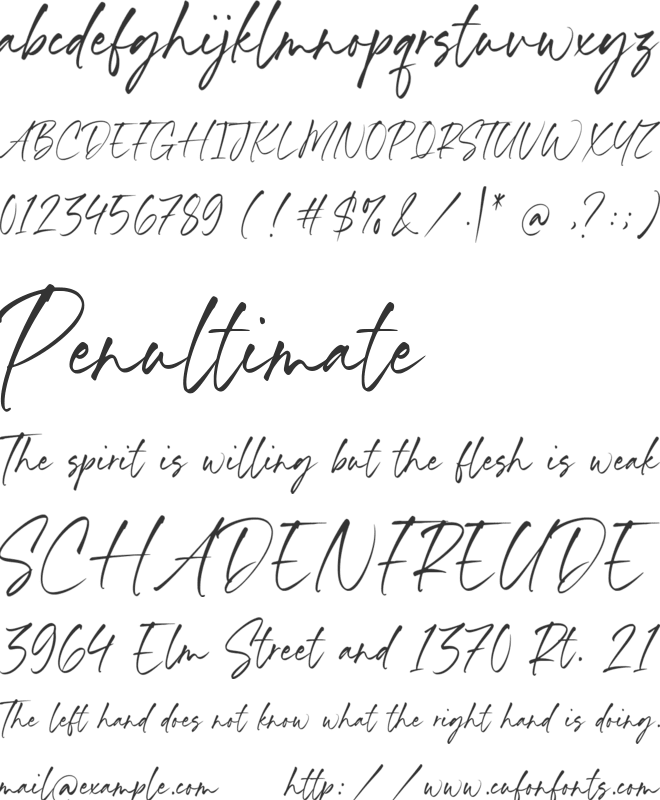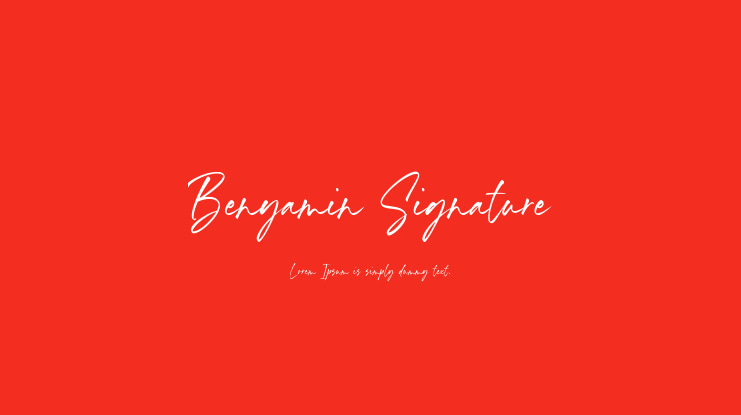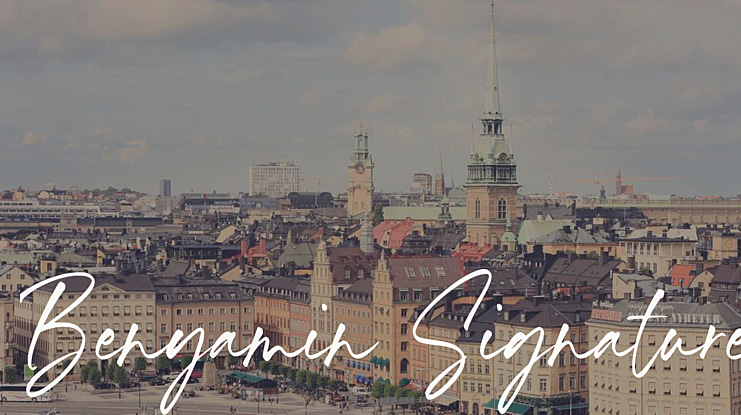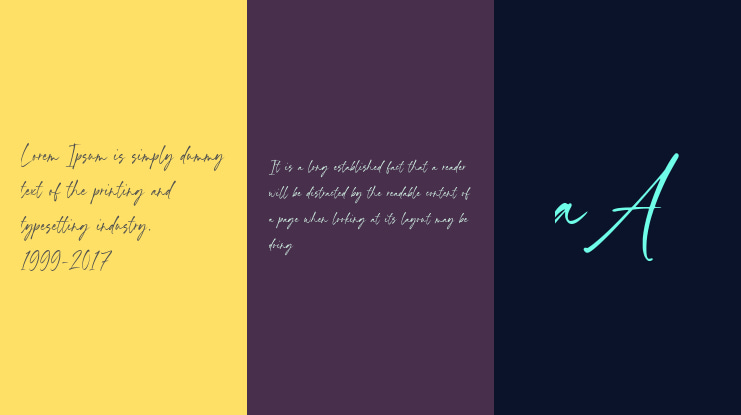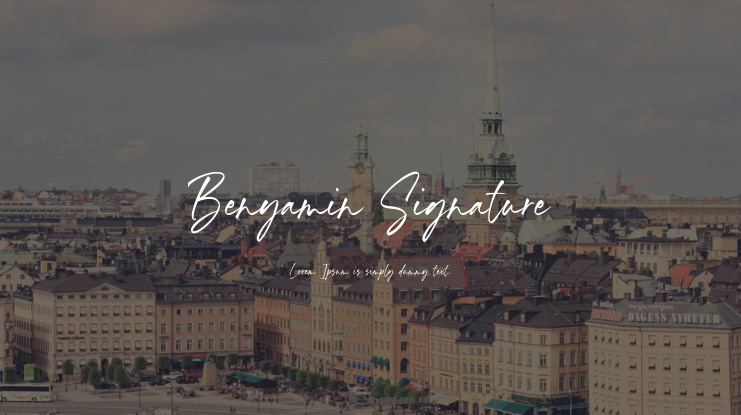
Benyamin Signature Font
Experience the modern and fresh feel of the Benyamin Signature Handwritten Font. This script font is perfect for adding a warm and inviting touch to your business. Whether you need it for product packaging, branding projects, magazines, social media, or weddings, Benyamin Signature Font can express your words beautifully against any background.
Key Features of the Benyamin Signature Font:
• Includes a full set of standard alphabet and punctuation
• Offers multilingual support